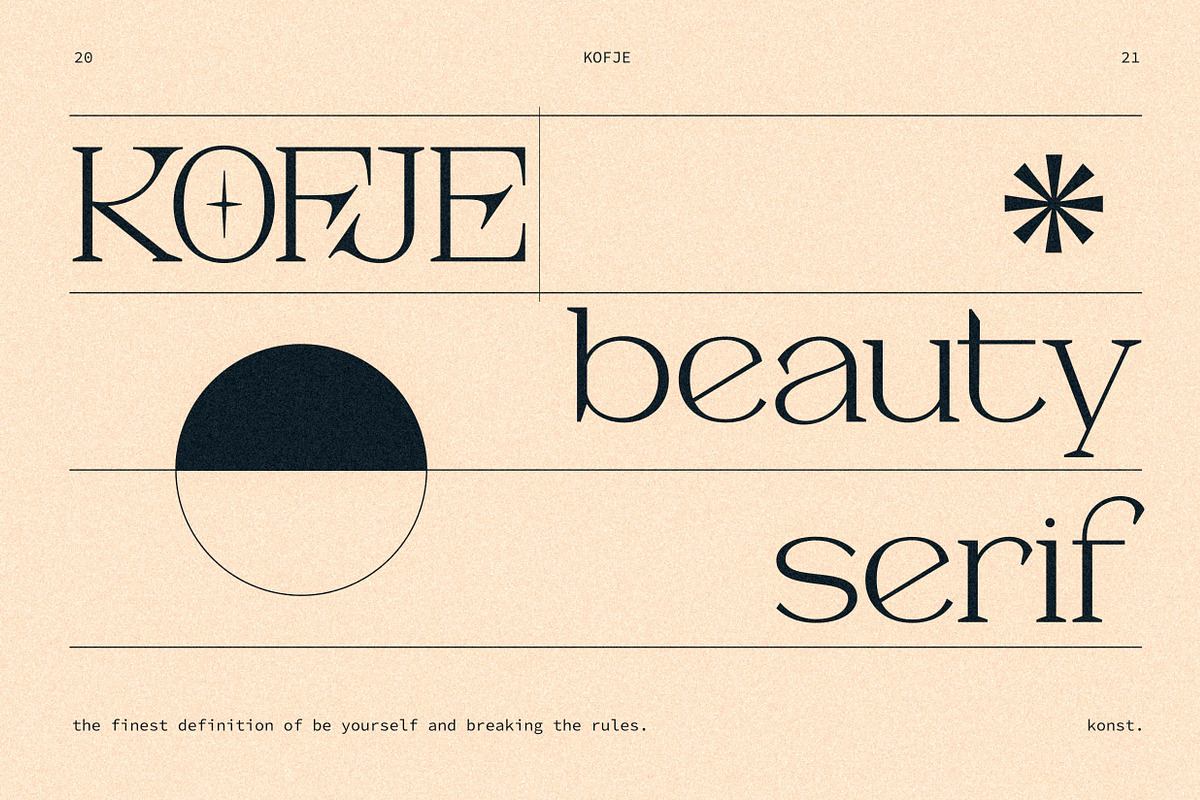
KOFJE - Beauty Serif Fonts Free Download is an elegant and modern serif typeface designed with beauty and sophistication in mind. With its refined curves, high contrast, and graceful letterforms, this font is perfect for luxury branding, fashion logos, high-end editorial designs, wedding invitations, and any project that requires a touch of class and refinement.
KOFJE stands out with its beauty and readability, making it ideal for both large headlines and body text. Whether you're creating upscale product packaging, chic social media graphics, or a polished print layout, this font will add elegance and style to your typography.
Add timeless elegance to your designs with KOFJE - Beauty Serif Fonts Free Download, and elevate your typography with a luxurious, sophisticated aesthetic. Perfect for creatives seeking beauty and professionalism in their type choices.